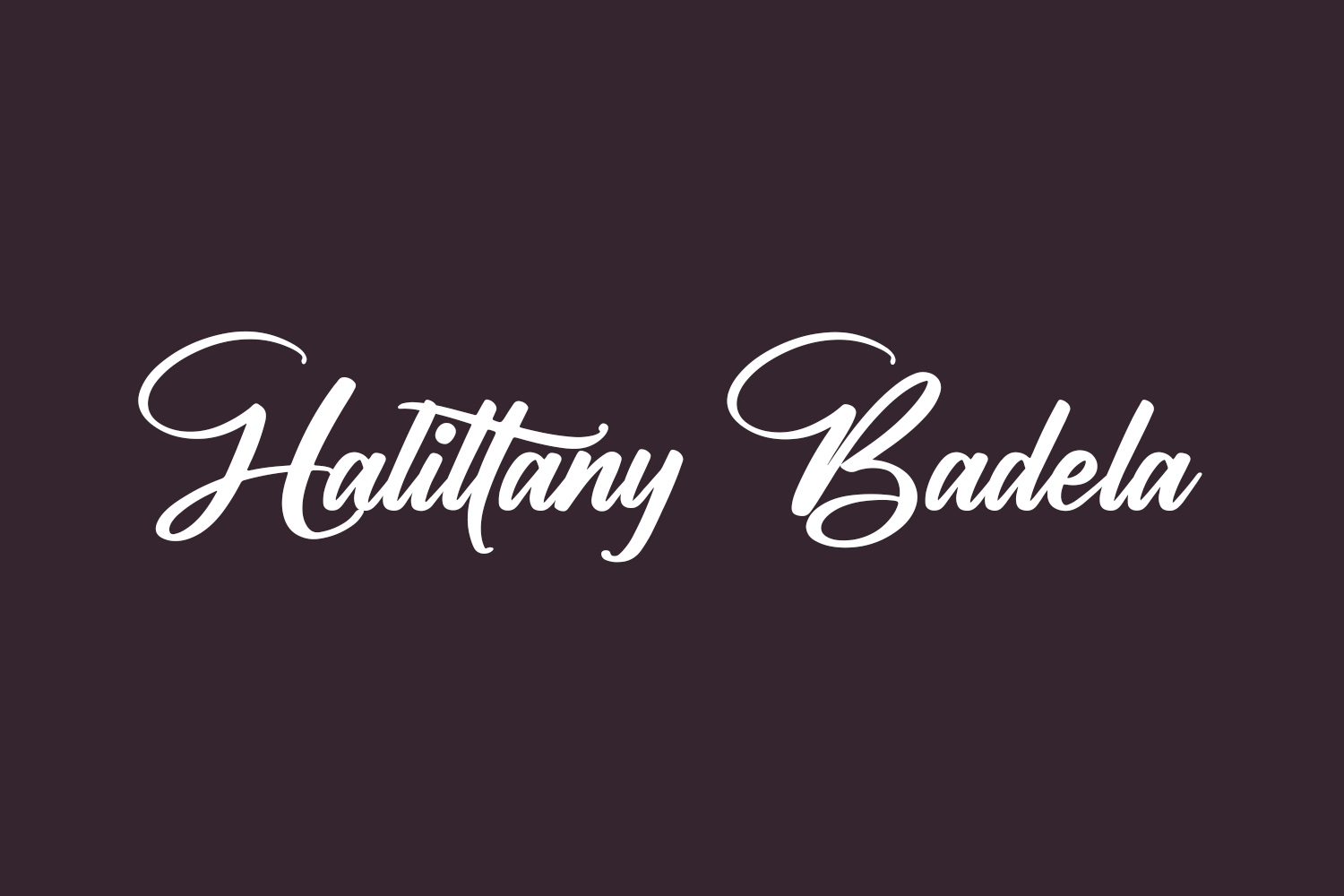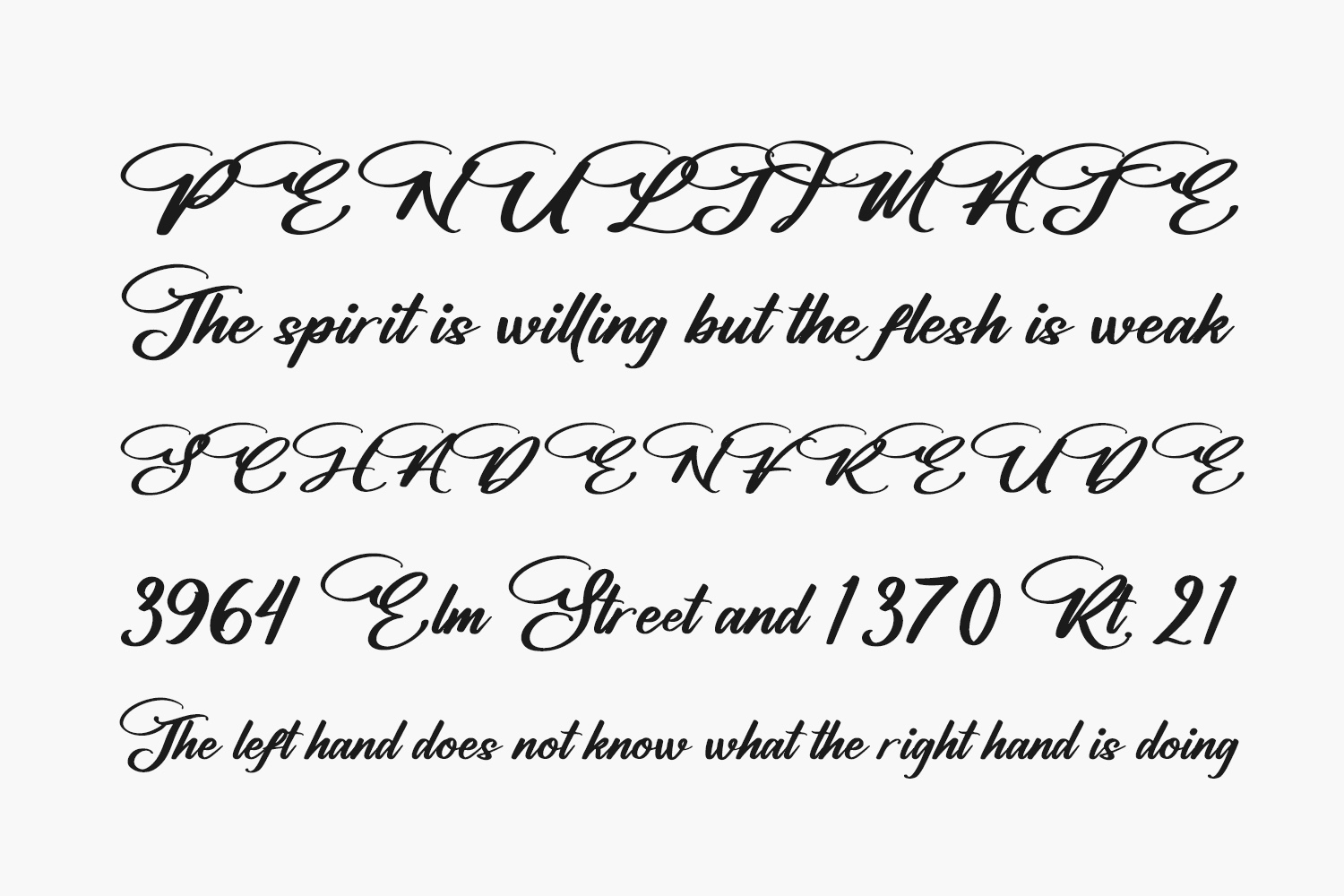
Halittany Badela Free Font Family is a beautiful and refined script font. It has a classy, elegant, and modern look that can be used for logos, branding, invitations, stationery, wedding designs, social media posts, and much more. Halittany Badela Free Font Family was designed by Perspectype Studio and is free for personal use only. Please purchase the full version for commercial use.